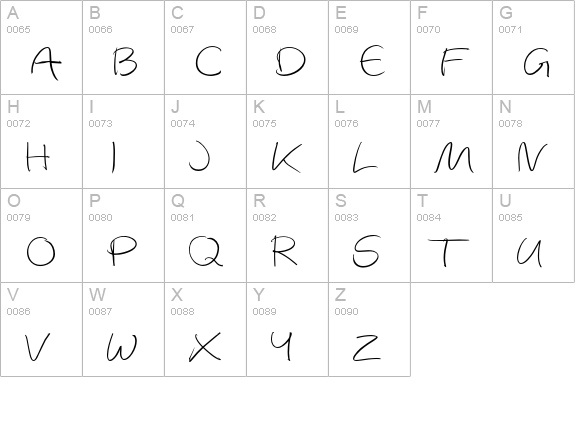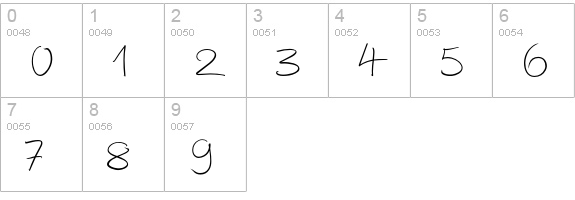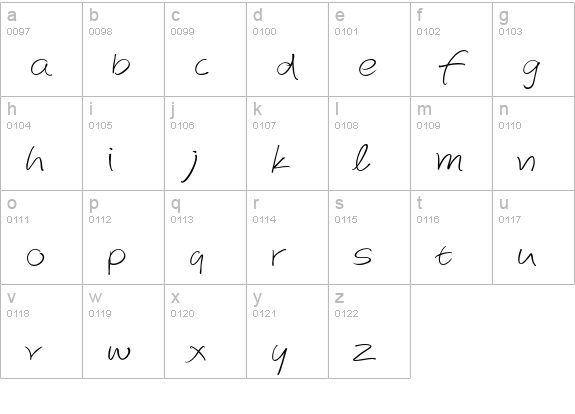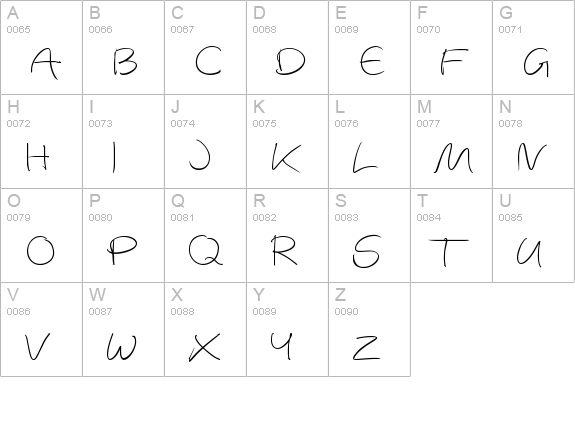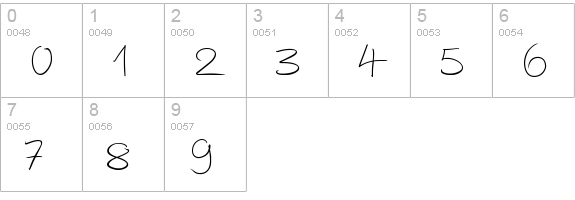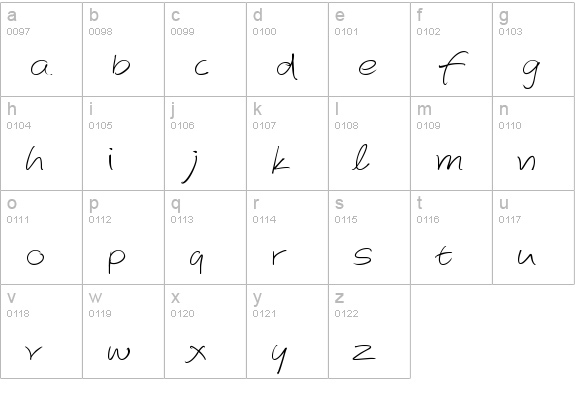
AutographScriptEF-Light is a refined, elegant variant in the AutographScriptEF typeface family \xE2\x80\x94 well suited to elegant body text, refined sub-headings, and luxury branding.
AutographScriptEF-Light is a charming and elegant handwritten font that exudes sophistication and style. With its delicate and flowing strokes, this font is perfect for adding a touch of class to your projects. Whether you're designing invitations, greeting cards, or branding materials, AutographScriptEF-Light will elevate your creations to the next level. The best part? AutographScriptEF-Light is completely free to download at FontsMarket.com. This means you can access this beautiful font without any cost, making it a valuable addition to your design toolkit. Don't miss out on the opportunity to enhance your projects with the timeless beauty of AutographScriptEF-Light. Download it today and let your creativity shine!